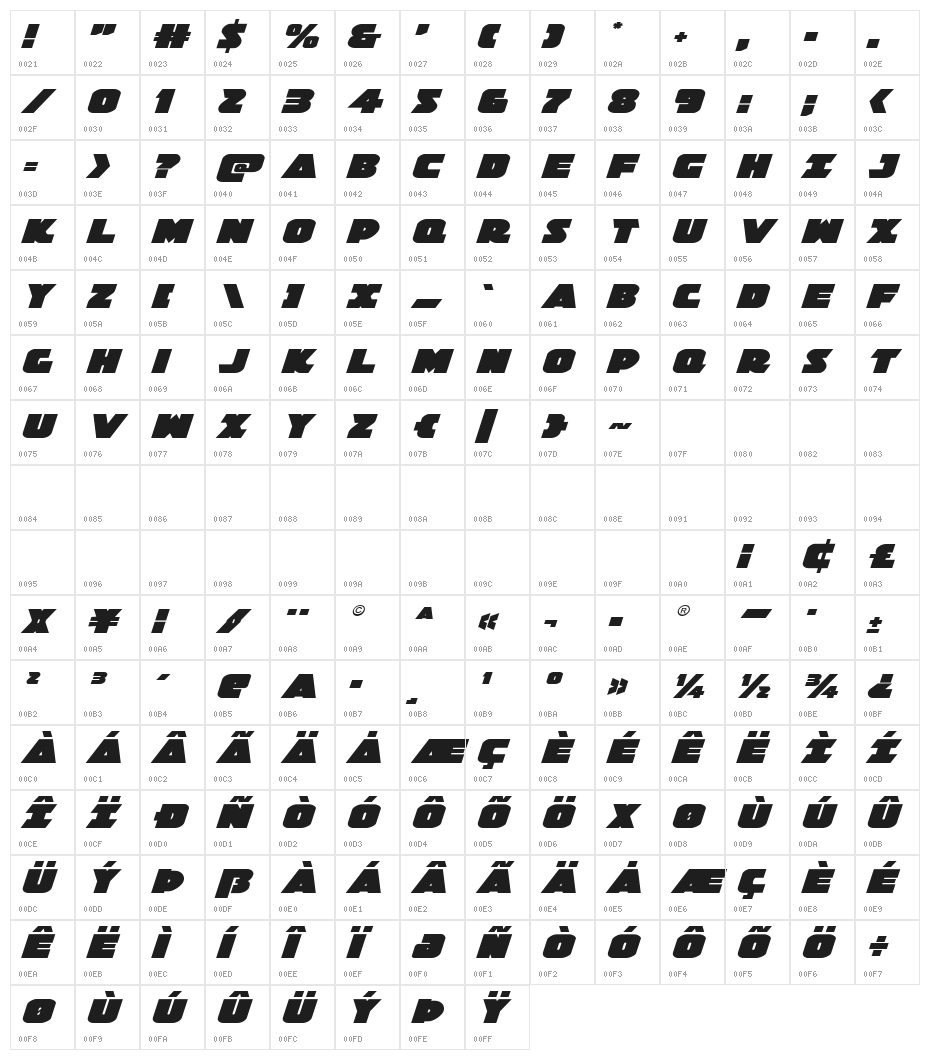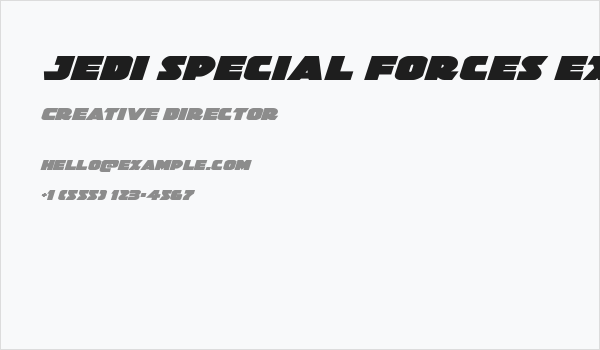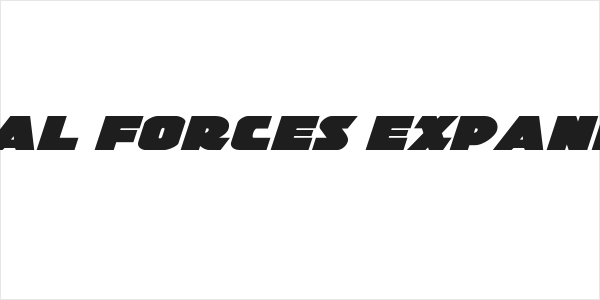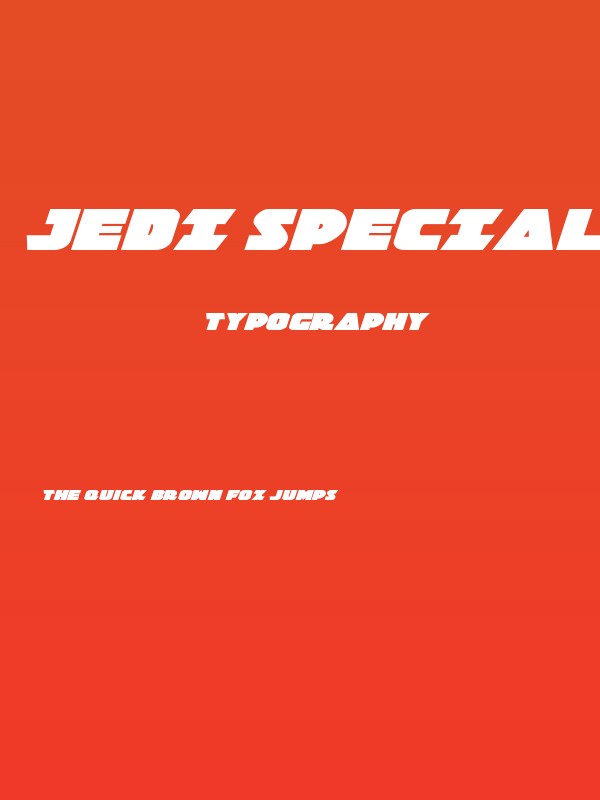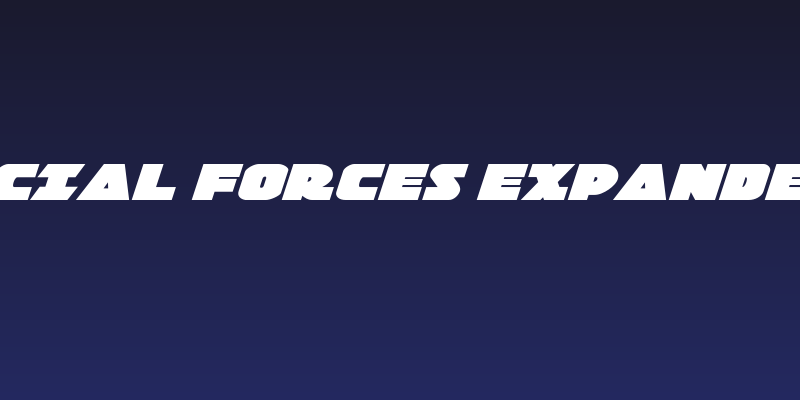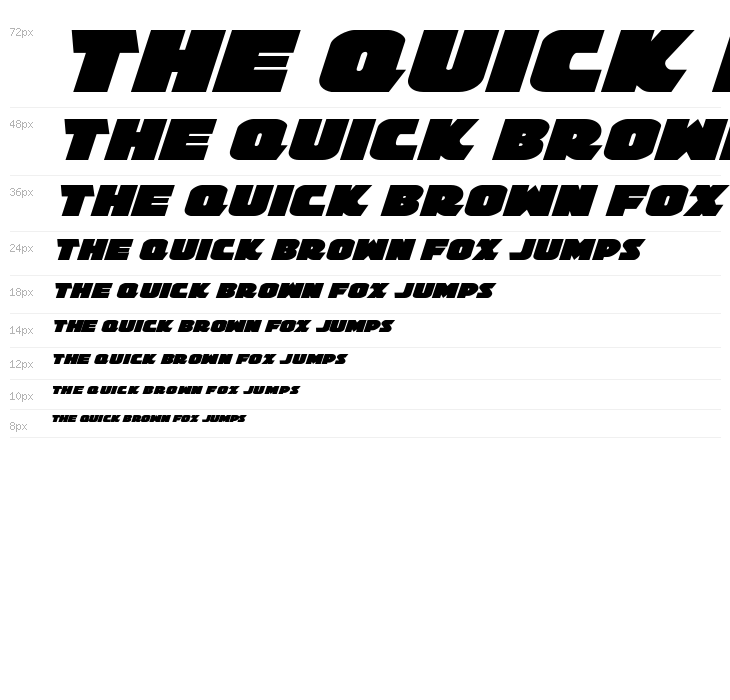
Jedi Special Forces Expanded Italic Font
Jedi Special Forces Expanded Italic Description
This font features a bold and dynamic style with a futuristic flair. The characters are heavily slanted, giving an italicized appearance that enhances its energetic and forward-moving aesthetic. The strokes are thick and uniform, contributing to a strong visual impact. The expanded width of the characters adds to the boldness, making it stand out prominently. The design is reminiscent of sci-fi themes, with angular cuts and sharp edges that suggest a sense of speed and modernity. The font maintains consistent spacing, ensuring readability despite its unique style. It is suitable for projects that require a bold statement or a futuristic touch.
| Overall Style | Futuristic, Dynamic |
| Proposed Projects | Ideal for sci-fi themed posters, video game titles, movie credits, or any project needing a bold, futuristic look. |